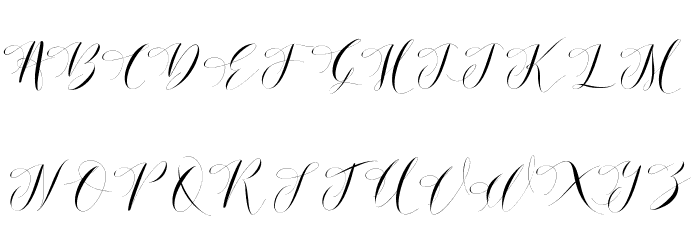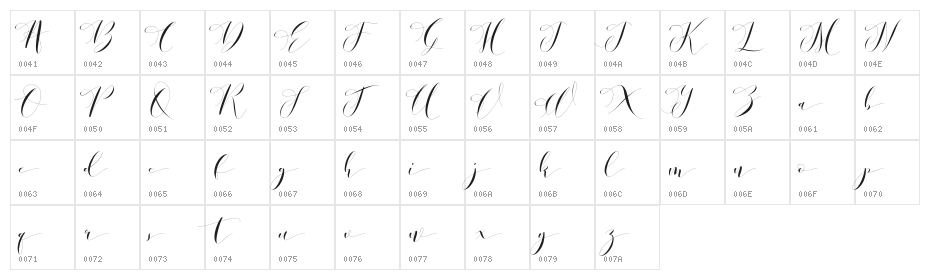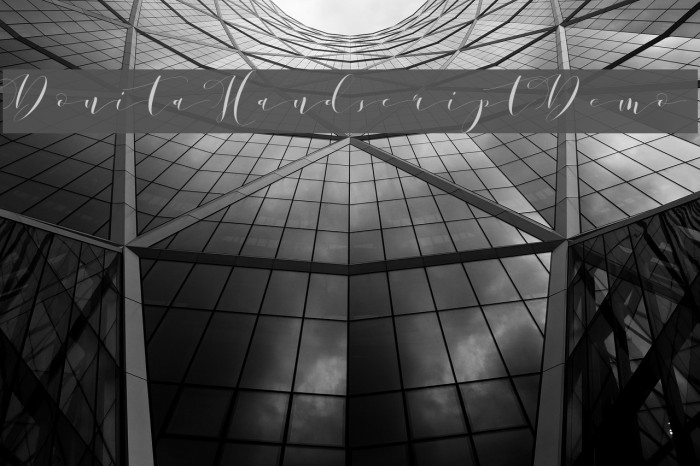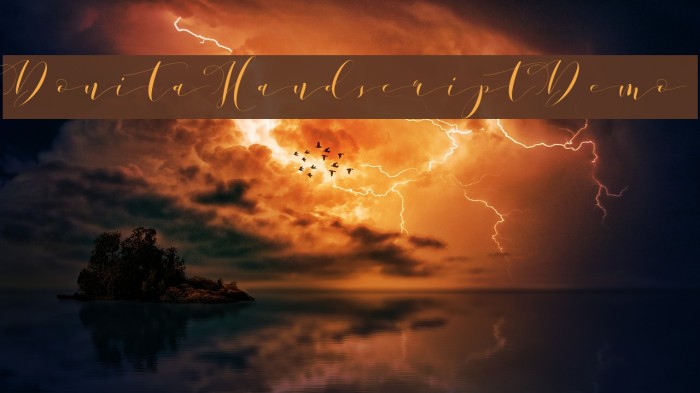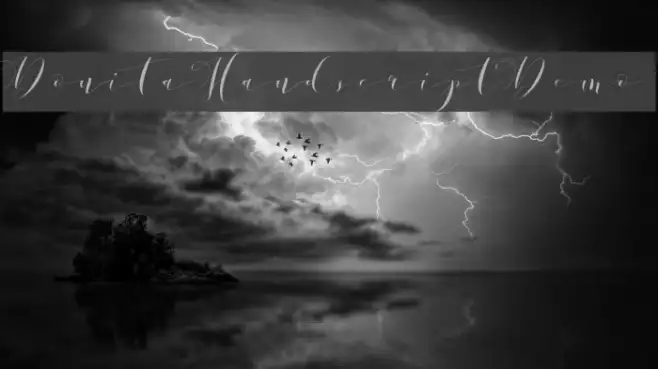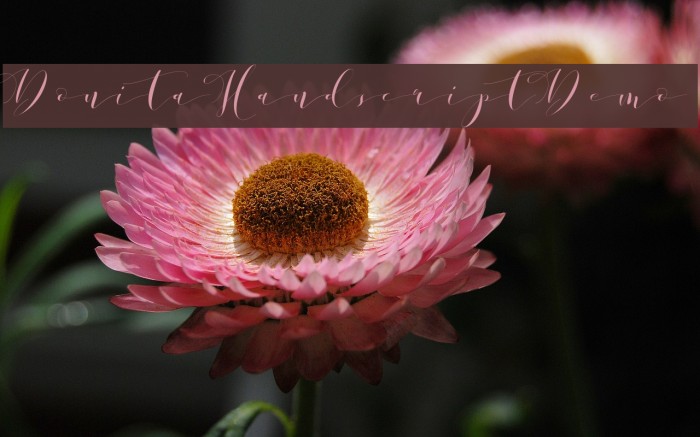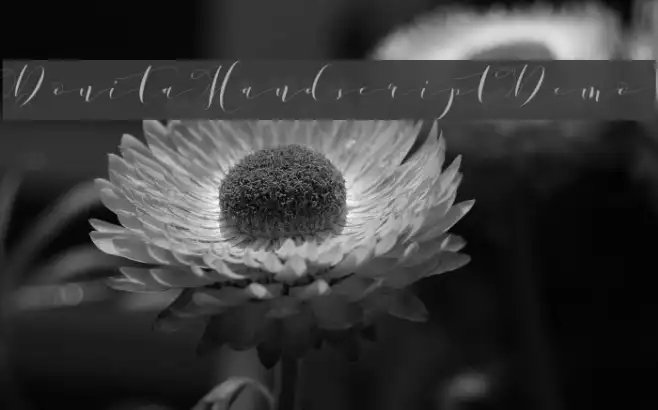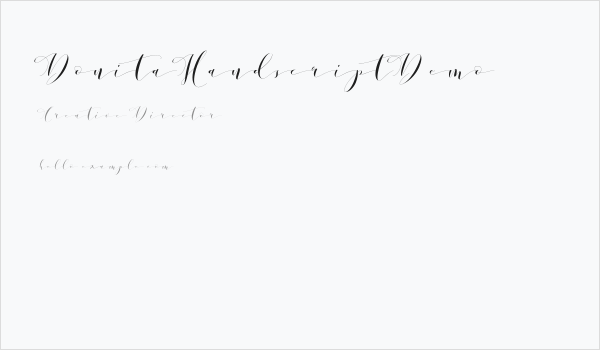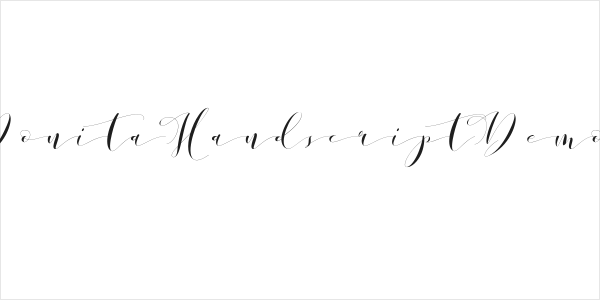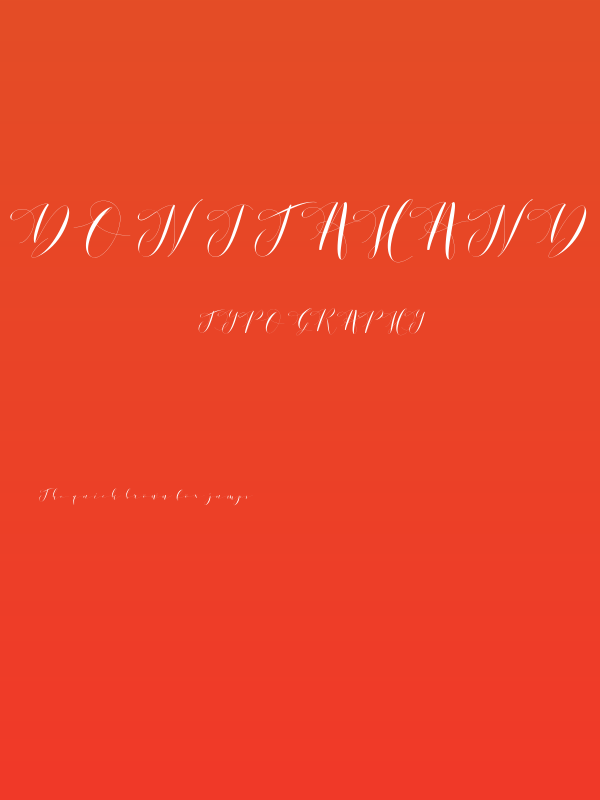
DonitaHandscriptDemo Font
DonitaHandscriptDemo Description
This elegant script font features flowing, interconnected letters with a refined and sophisticated appearance. The uppercase letters are adorned with delicate swashes and flourishes, adding a touch of grace and fluidity to the overall design. The lowercase letters maintain a consistent style, with smooth curves and a natural handwritten feel. The font's thin strokes and high contrast between thick and thin lines give it a luxurious and stylish look, making it ideal for formal invitations, branding, and decorative purposes. Its artistic flair and attention to detail make it stand out as a choice for projects that require a touch of elegance and personalization.
| Proposed Projects | Ideal for wedding invitations, luxury branding, greeting cards, and decorative designs. |